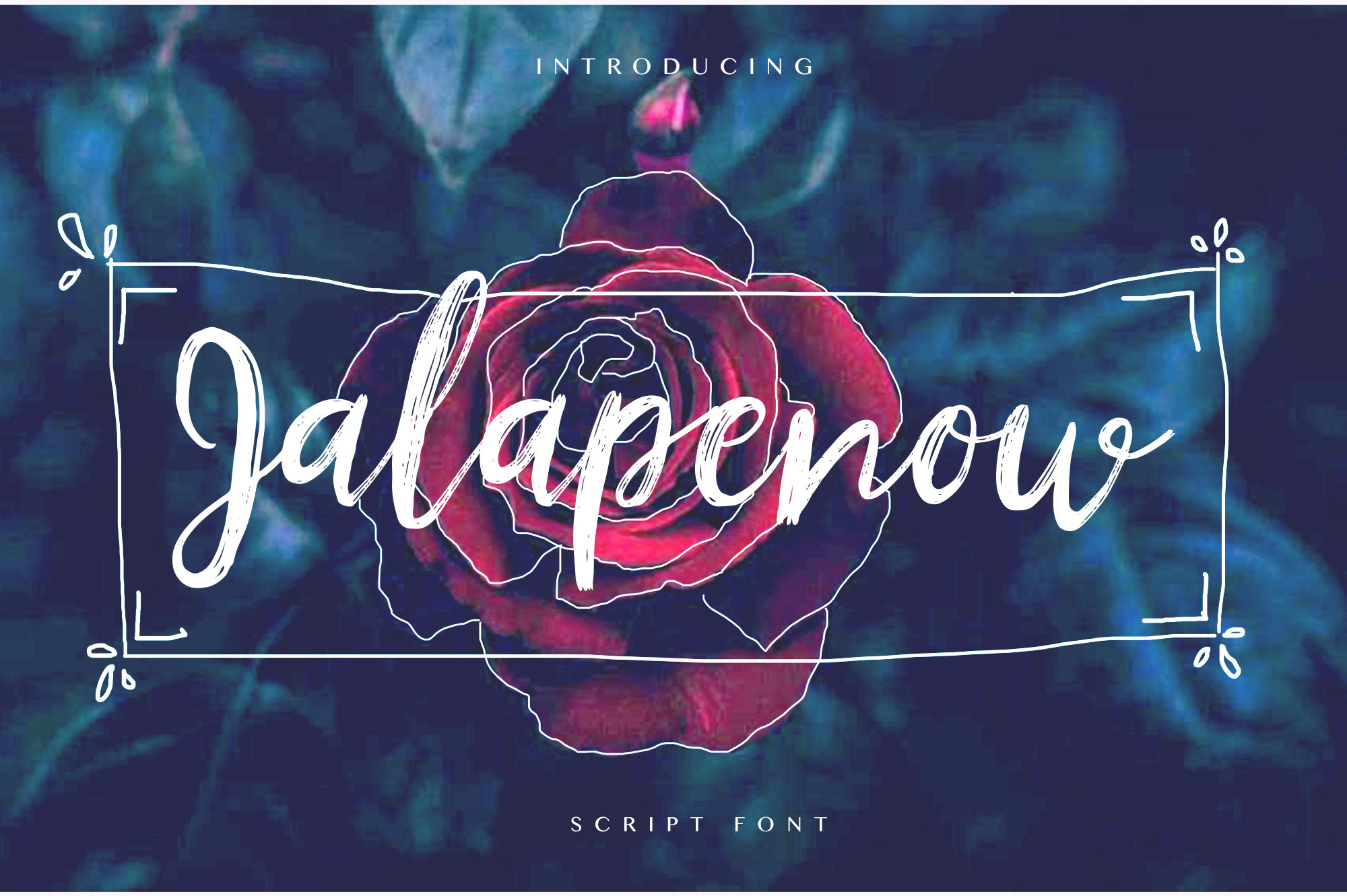
Jalapenow Brush Font
Jalapenow Brush Script is a feminine playful script font made with care and love to fit perfectly for your texts, logo, quotes, blog header, poster, wedding invitation, stationery, etc.
The font contains standard characters, lowercase, uppercase, numbers and punctuation.